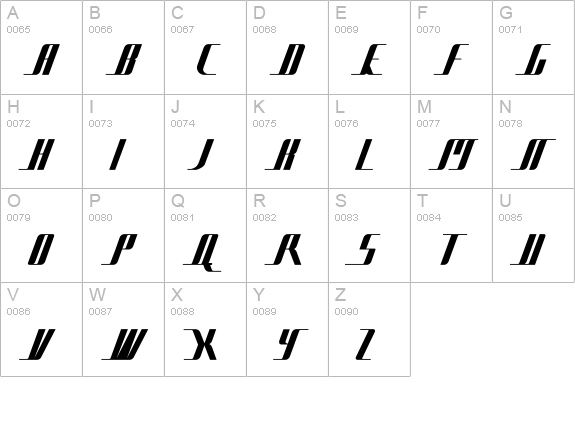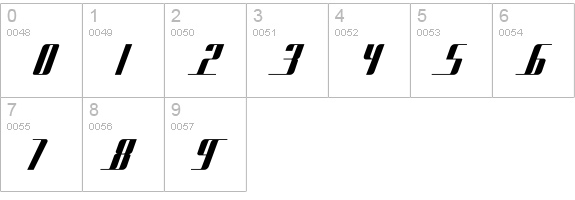
Bad Films Font Details
Introducing the Bad Films font, a whimsical and quirky typeface that adds a touch of playfulness to any design project. With its unique and distinctive letterforms, this font is perfect for adding a touch of fun to posters, signage, invitations, and more. The Bad Films font features bold and exaggerated letter shapes, reminiscent of old-school movie titles and retro comic books. Its uneven lines and irregular spacing give it a distinct and edgy look, making it stand out from the crowd. Whether you're looking to create a vintage-inspired design or simply want to inject some personality into your work, this font is sure to deliver. But what sets the Bad Films font apart is that it's not only visually captivating, but also freely available to download at FontsMarket.com. Yes, you heard that right – this font can be yours without spending a dime. FontsMarket.com is renowned for its vast collection of high-quality fonts, and the Bad Films font is no exception. So why wait? Elevate your designs with this unique and eye-catching font today. Whether you're a professional designer or a DIY enthusiast, the Bad Films font is a must-have addition to your typography toolbox. Its versatility allows it to be used across a wide range of projects, from branding and packaging to social media graphics and beyond. With its free availability and impressive design features, this font offers endless creative possibilities. So why settle for ordinary when you can embrace the extraordinary with the Bad Films font? Download it now at FontsMarket.com and let your imagination run wild. Unleash your creativity and make a statement with this captivating and freely accessible font. Don't miss out on this opportunity to add a touch of whimsy and charm to your designs – get the Bad Films font today!